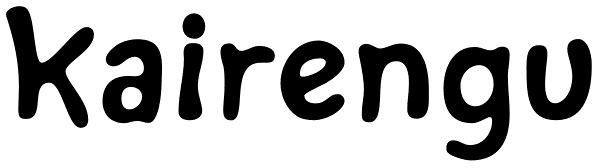
Kairengu
Kairengu is a casual and lively rounded sans serif. The characters are "gloopy" as if ink was poured onto page surface. Kairengu is a great choice whenever you need an amusing face with a lot of character.